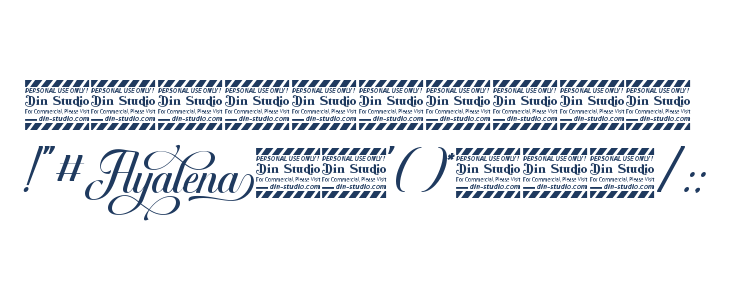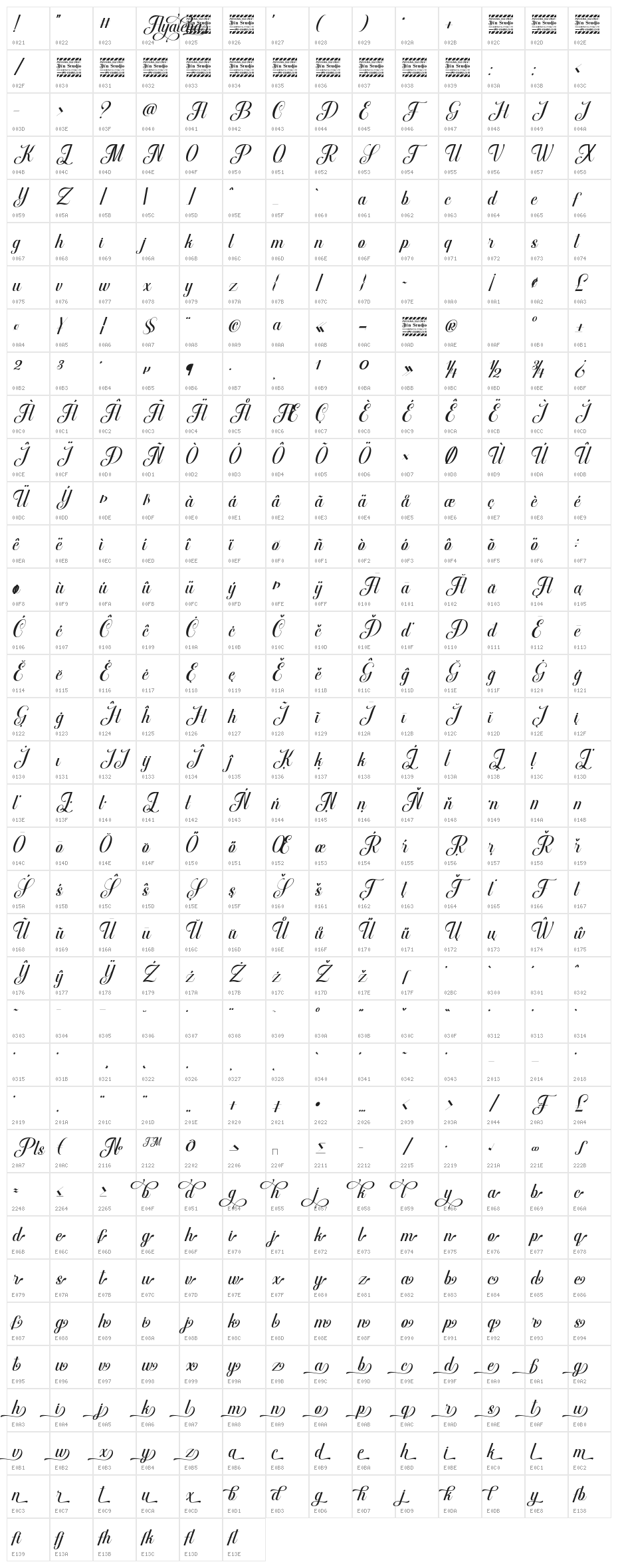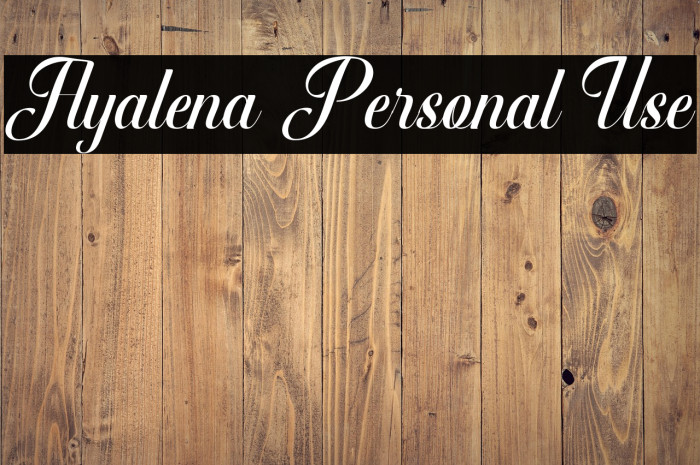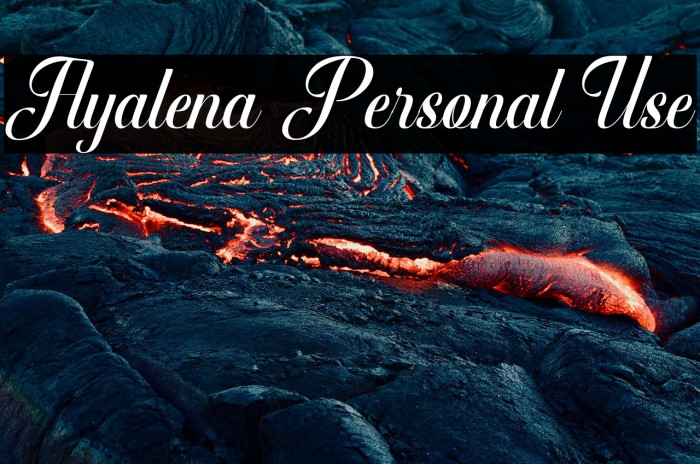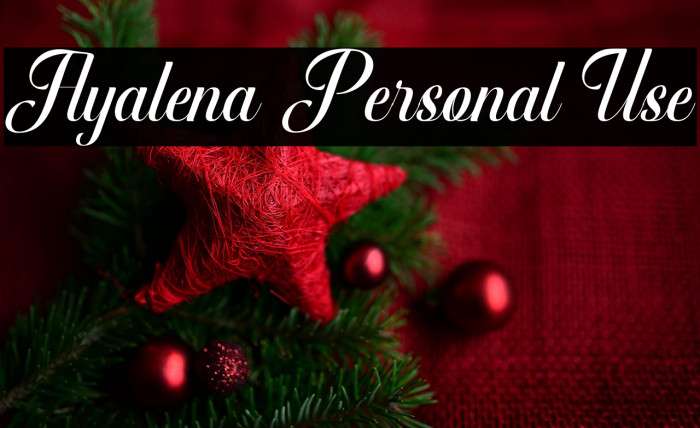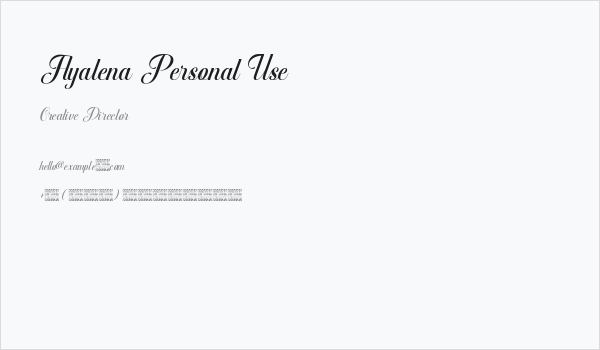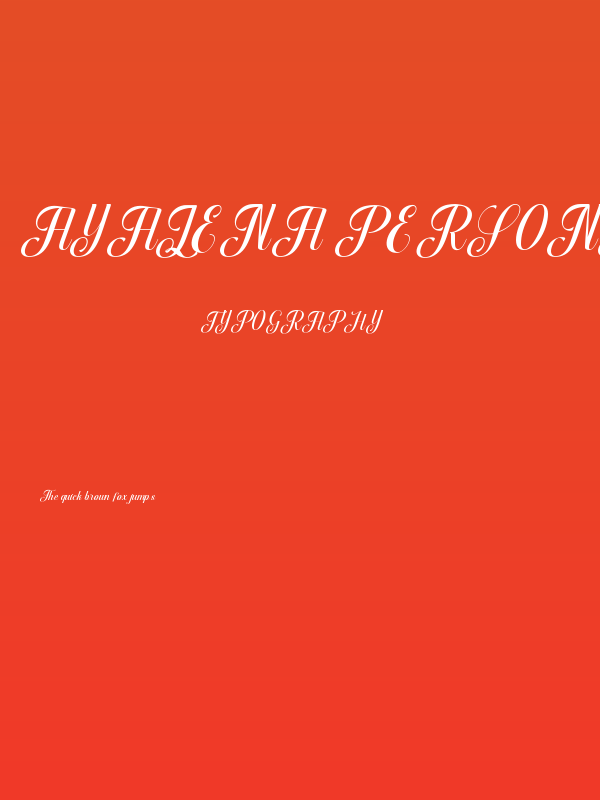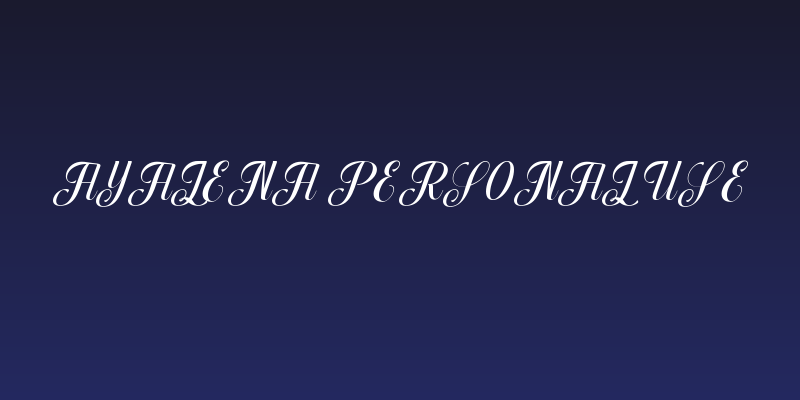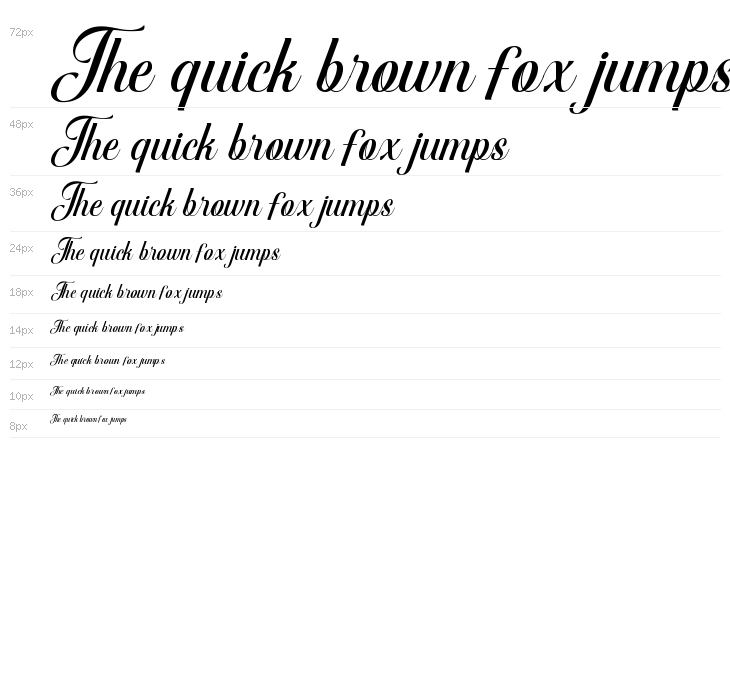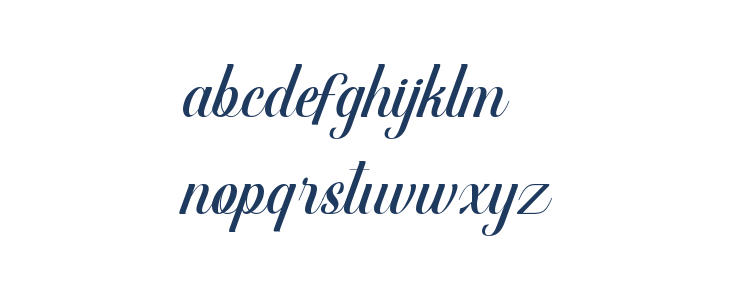
Ayalena Personal Use Font
Ayalena Personal Use Description
This elegant script font features a flowing, cursive style with high contrast between thick and thin strokes. The uppercase letters are ornate, with sweeping curves and loops that give a sense of sophistication and grace. The lowercase letters maintain a consistent slant, enhancing the fluidity of the text. This font is perfect for creating a luxurious and stylish appearance, making it ideal for formal invitations, branding, and decorative purposes. The special characters are designed to complement the overall aesthetic, ensuring a cohesive look across all text elements.
| Overall Style | Elegant, Decorative |
| Use Case | Headlines, Invitations, Branding |
| Proposed Projects | Ideal for wedding invitations, luxury branding, and decorative headings. |